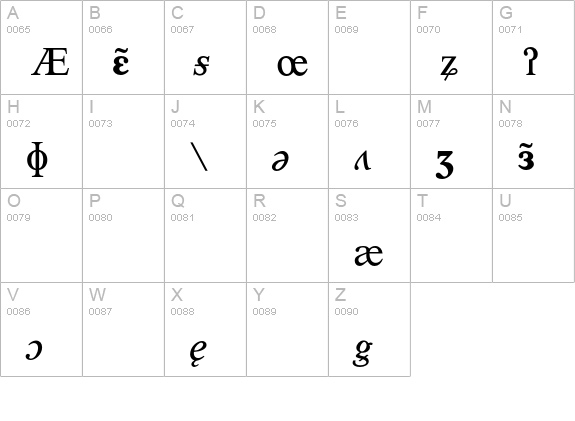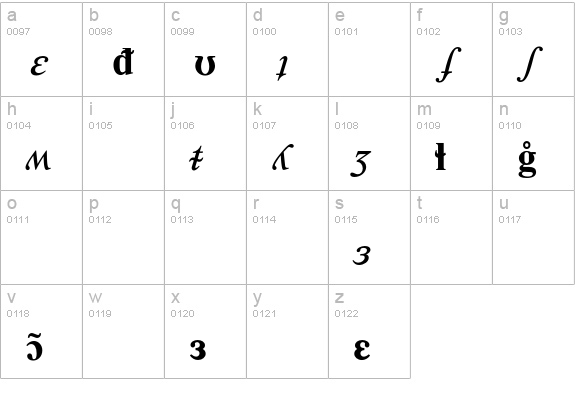
PhoneticsP03 font is a remarkable display font that is perfect for adding a touch of elegance and sophistication to your designs. With its unique and intricate letterforms, this font will surely captivate the attention of viewers and make your projects stand out. One of the best features of PhoneticsP03 font is that it is available for free. That's right, you can download this incredible font without spending a dime. It is freely available to download at FontsMarket.com, a trusted website for high-quality fonts. The sleek and modern design of PhoneticsP03 font makes it suitable for a wide range of projects. Whether you're designing a logo, creating a website, or working on a branding project, this font will add a touch of professionalism and sophistication to your work. The attention to detail in PhoneticsP03 font is truly remarkable. Each letter is meticulously crafted to ensure optimal legibility and visual appeal. The clean lines and smooth curves of the letterforms create a harmonious and balanced look that is pleasing to the eye. Another advantage of PhoneticsP03 font is its versatility. It can be used in both digital and print media, making it a valuable asset for designers and creatives. Whether you're designing a poster, a magazine layout, or an advertisement, this font will help you achieve a polished and professional look. In conclusion, PhoneticsP03 font is a stunning display font that is bound to elevate your designs to the next level. With its unique and intricate letterforms, sleek design, and versatility, it is a must-have for any designer. And the best part? It is available for free! Don't miss out on this incredible opportunity to download PhoneticsP03 font at FontsMarket.com and enhance your design projects today.